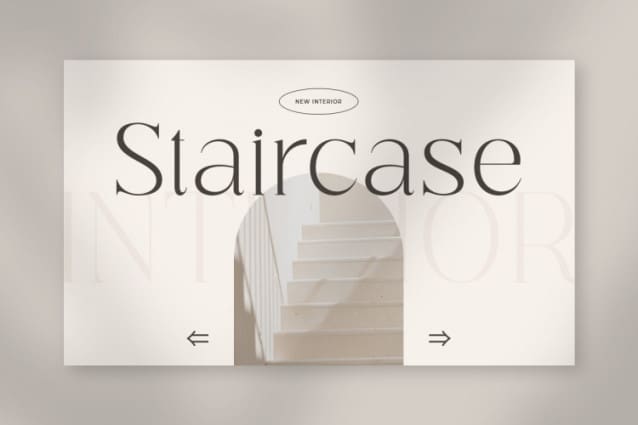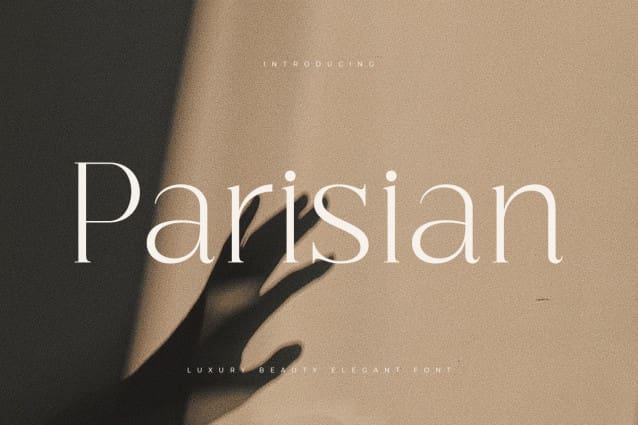
Parisian Font
Parisian Font A Luxury Beauty Elegant Font that we created special for elegant and Fashion branding needs that we created special for elegant branding needs, with extra ligature and alternates in unique shape will be ready to add value of your brand. It so nice to leverage designer or product owner that need solutions to make their design look more classy and modern. And specially for this font, We prepared any ligatures, and any alternate characters to help you create unlimited variations for your creative needs.